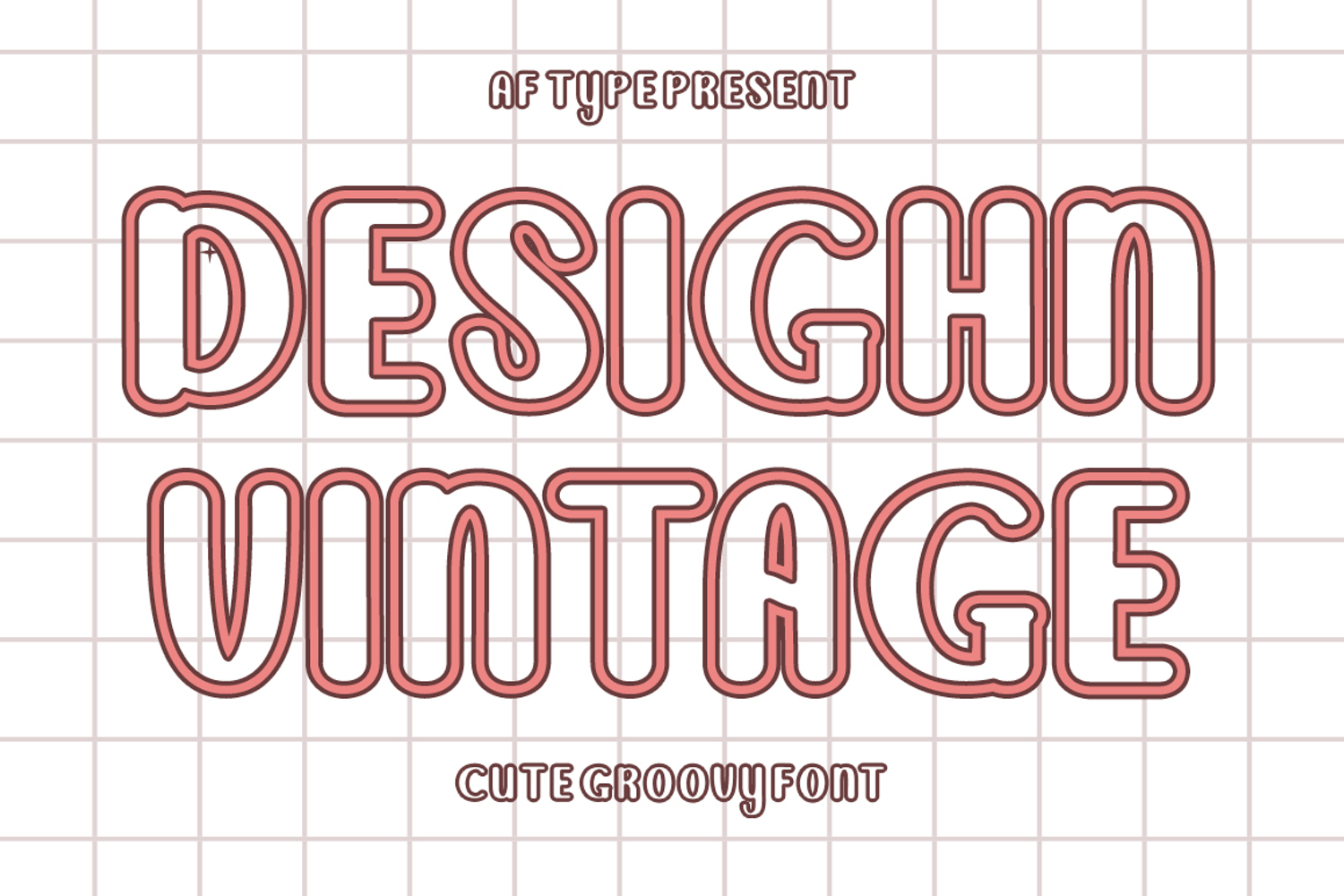
Design Vintage
Design Vintage is a cheerful, handwritten font full of personality! With bold outlines, sweet curves, and a playful feel, this cute display font is ideal for creating adorable quotes, children's apparel, birthday invitations, digital planners, SVG designs, classroom posters, and more. Its friendly, bold style makes it highly legible and easy to cut, perfect for Cricut, Silhouette, and Glowforge projects. Whether you're designing for teachers or toddlers, Design Vintage adds playful charm to every word. Available in OTF and TTF file formats, it's fully compatible with most design software. Let your words sparkle with joy—get Design Vintage today and start creating magic!